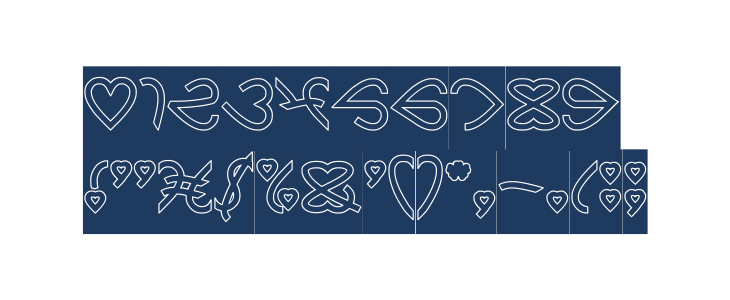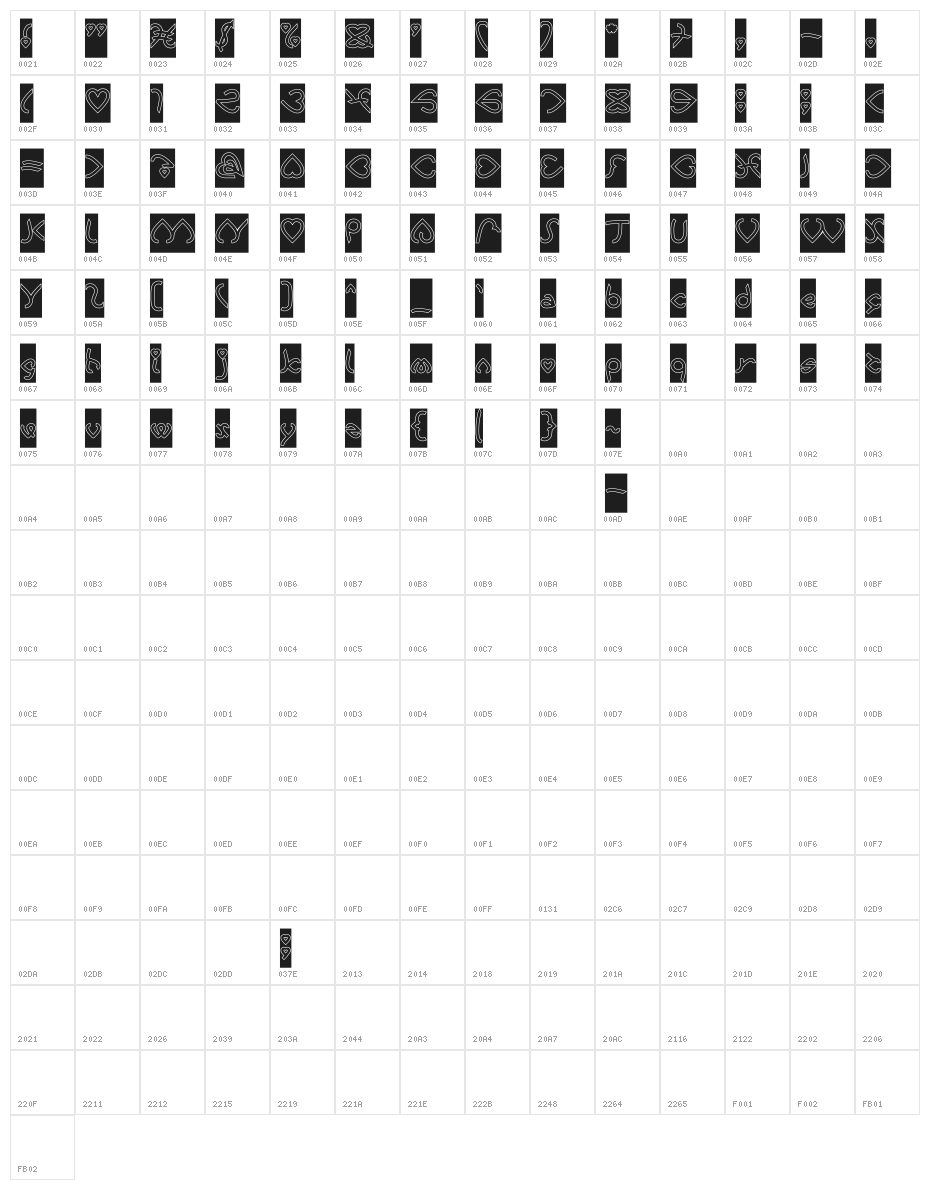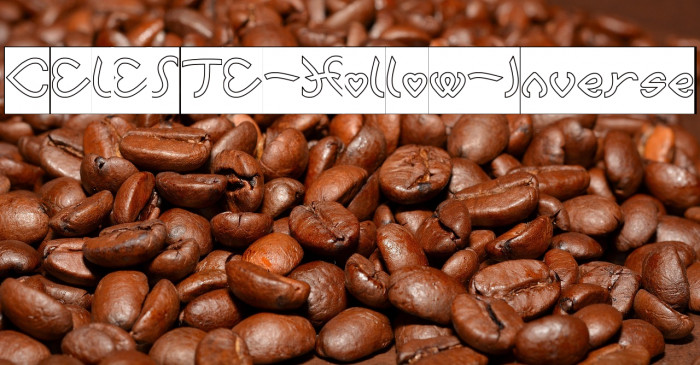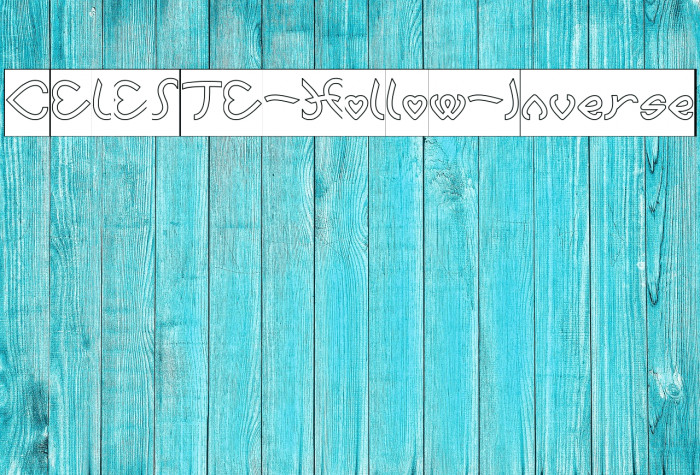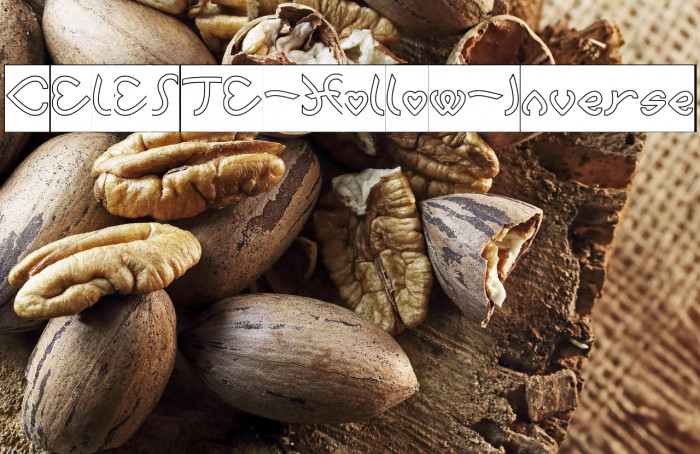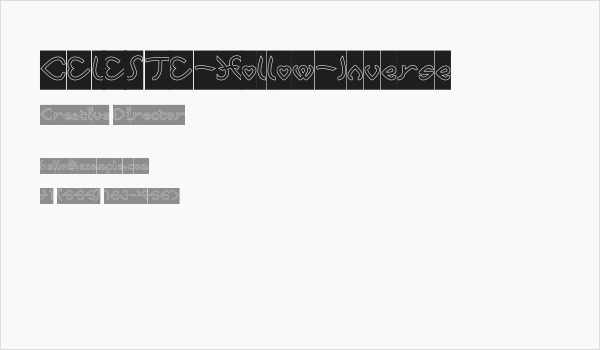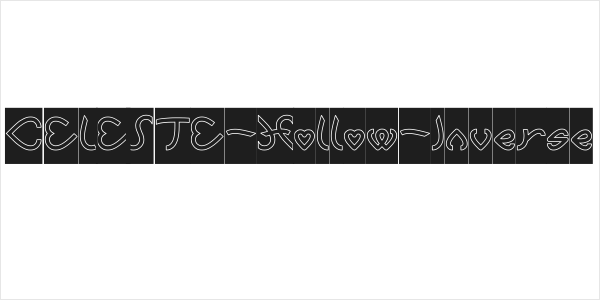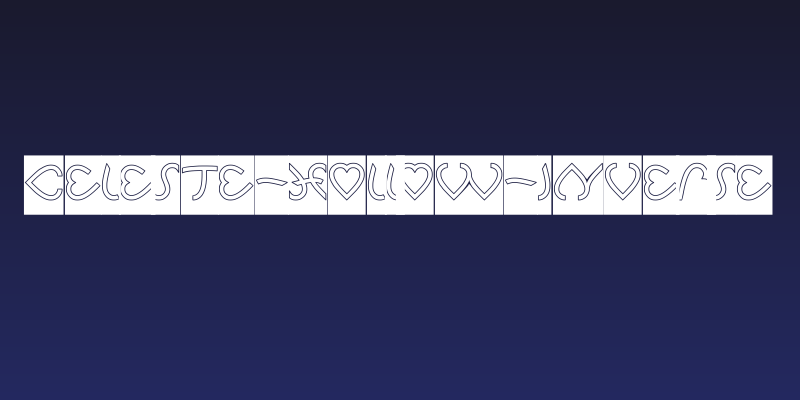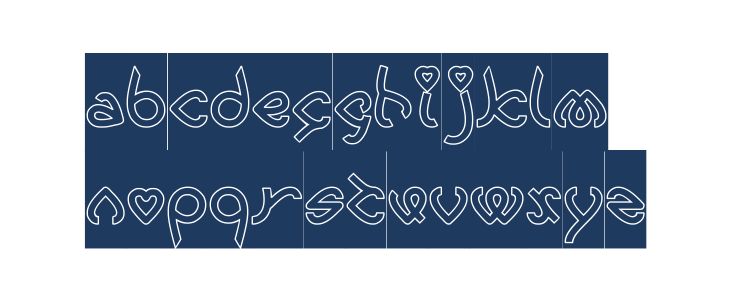
CELESTE-Hollow-Inverse Font
CELESTE-Hollow-Inverse Description
This font features a playful and decorative style, characterized by its hollow, heart-shaped elements integrated into each character. The uppercase and lowercase letters, as well as numbers and special characters, maintain a consistent theme of love and whimsy. The lines are smooth and flowing, creating a sense of movement and lightness. The unique design makes it stand out, with each character having a distinct personality while maintaining a cohesive look across the entire set. This font is perfect for projects that require a touch of romance or fun, such as Valentine's Day cards, wedding invitations, or playful branding.
| Proposed Projects | Ideal for Valentine's Day cards, wedding invitations, playful branding, and romantic-themed projects. |